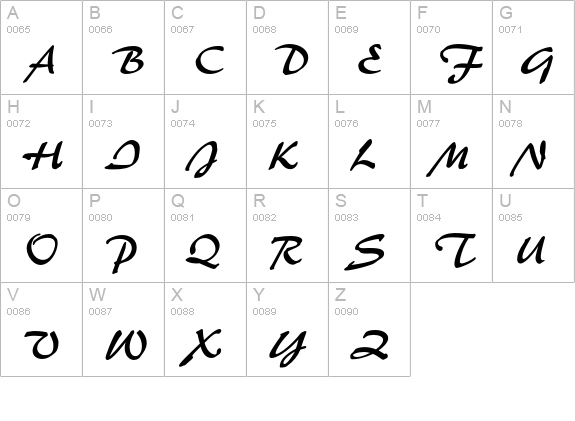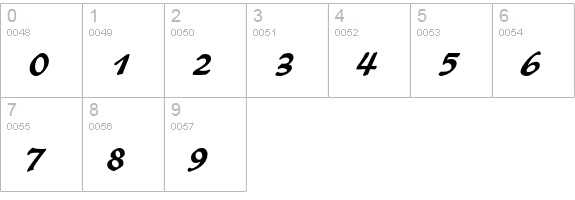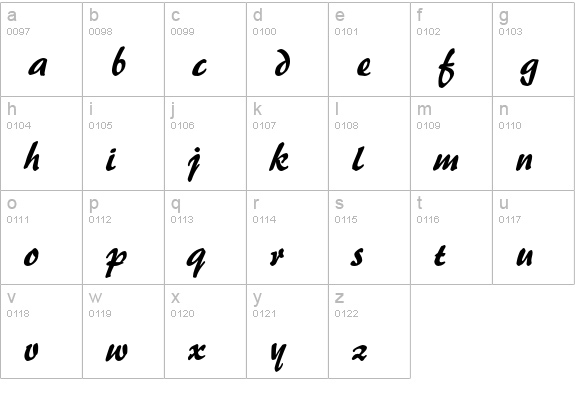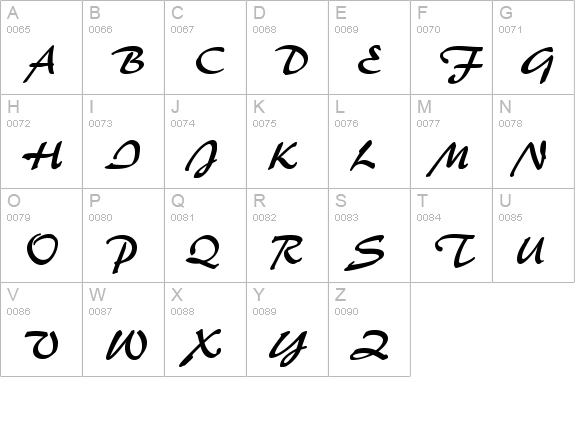
Brush 445 Font Details
Brush 445 is a stunning font that exudes elegance and creativity. With its unique brush strokes and fluid design, this font is perfect for adding a touch of artistic flair to your projects. Whether you're working on a logo, poster, or any other design, Brush 445 will help you make a bold statement. The free-flowing nature of this font gives it a sense of movement and dynamism, making it a versatile choice for a wide range of design applications. And the best part? Brush 445 is freely available to download at FontsMarket.com. So you can start using this beautiful font in your projects right away, without any hassle. Don't miss out on the opportunity to enhance your designs with the beauty and sophistication of Brush 445. Download it for free today and let your creativity shine!